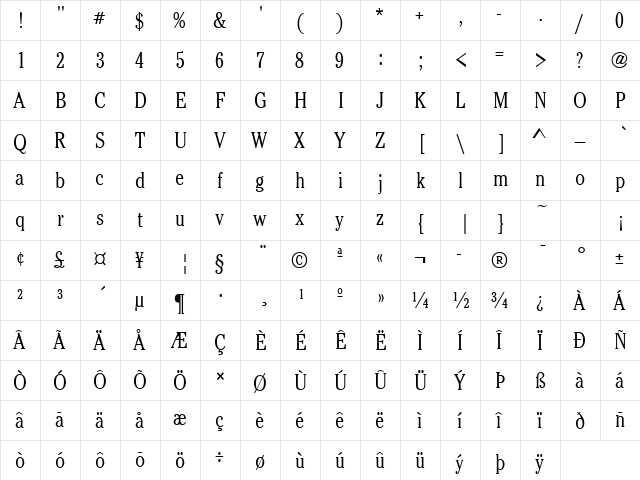
CheltenhamCondLH Regular Font Preview
CheltenhamCondLH Regular
Design Context for CheltenhamCondLH Typeface
CheltenhamCondLH is a composed and adaptable typeface that performs quietly and consistently across a wide range of design contexts. Its narrow stance lets it pack a punch even in space-constrained designs.